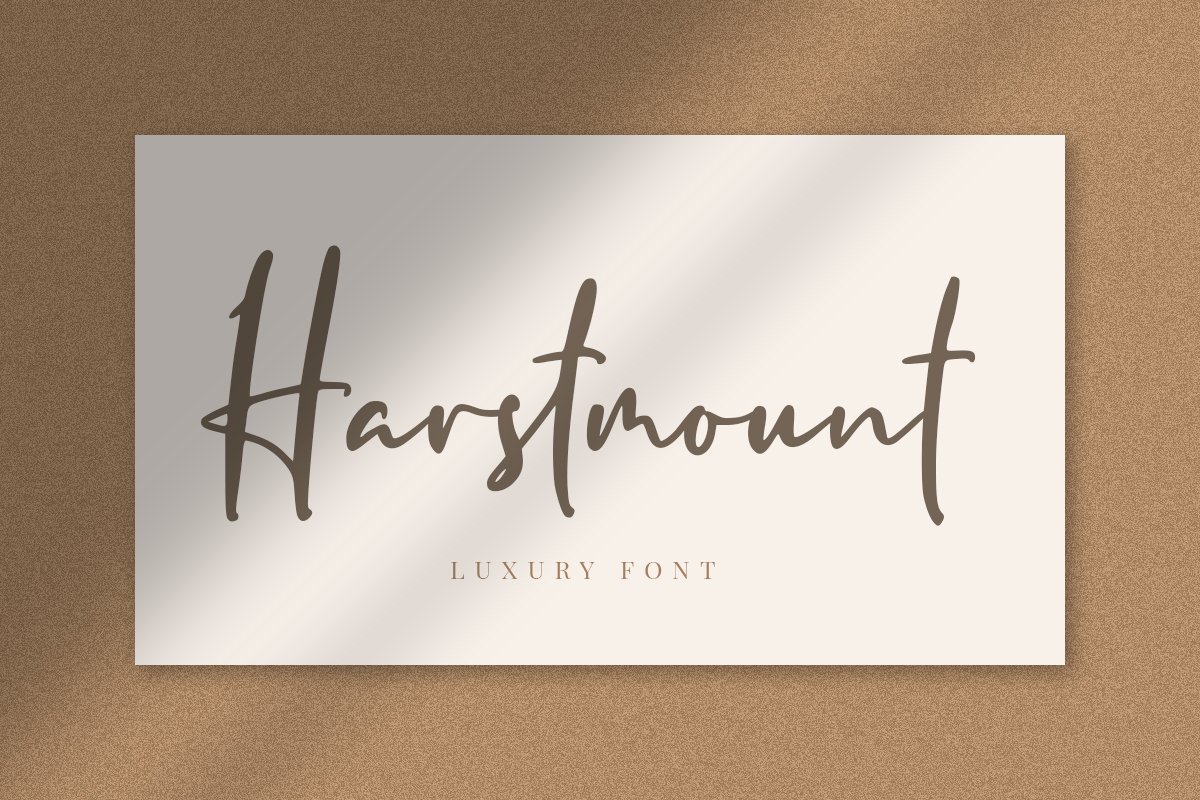
Harstmount // Luxury Signature Font
Harstmount
Harstmount simplifies elegance into one truly outstanding script font.
It will elevate a wide range of design projects to the highest level, be
it branding, headings, wedding designs, invitations, signatures, logos,
labels, and much more!